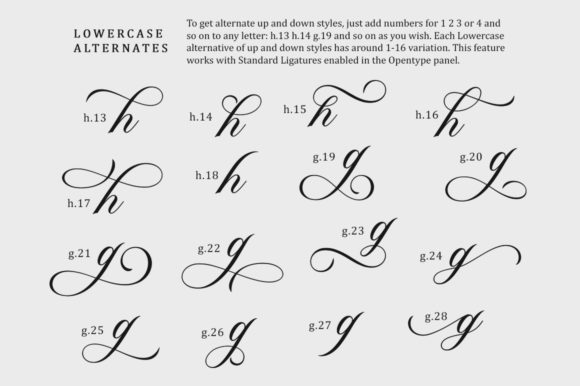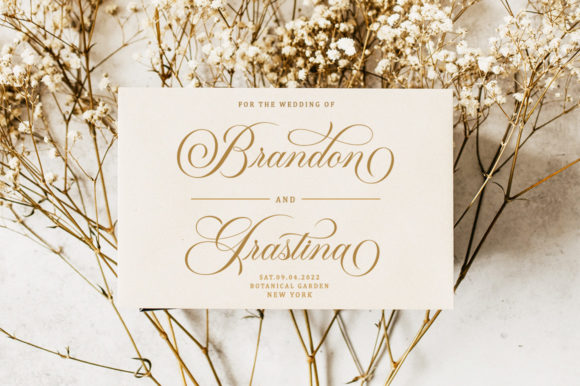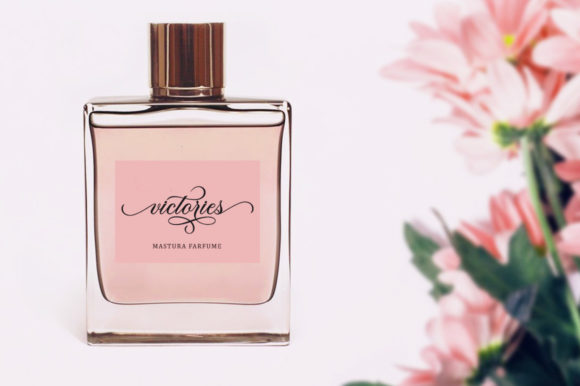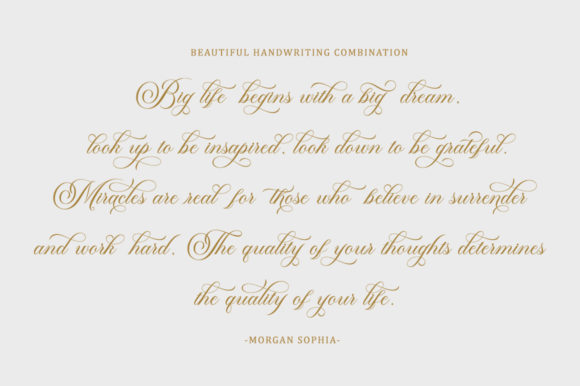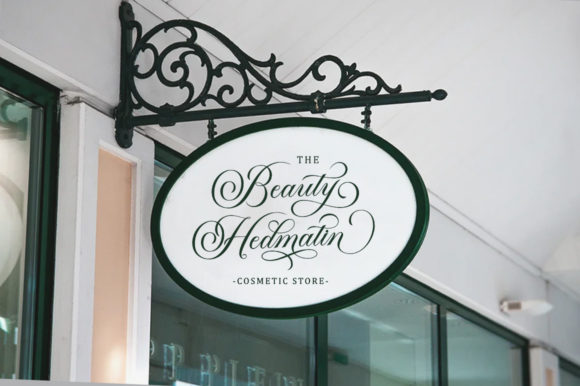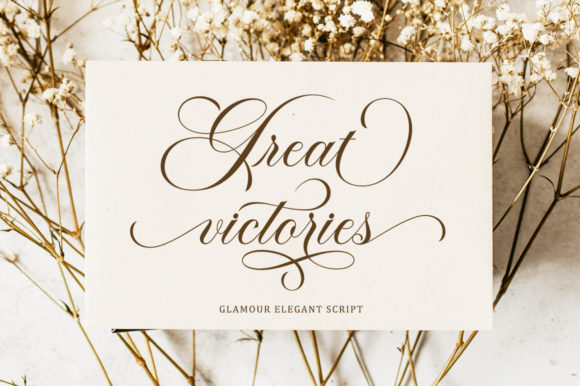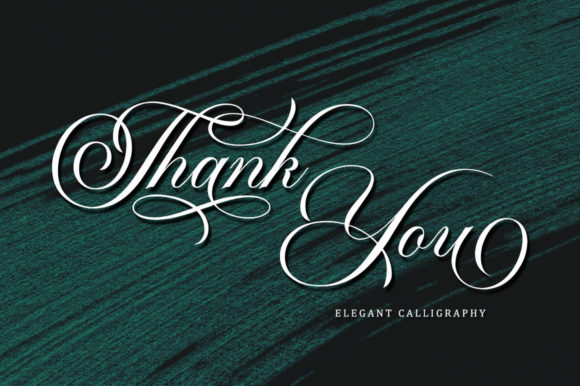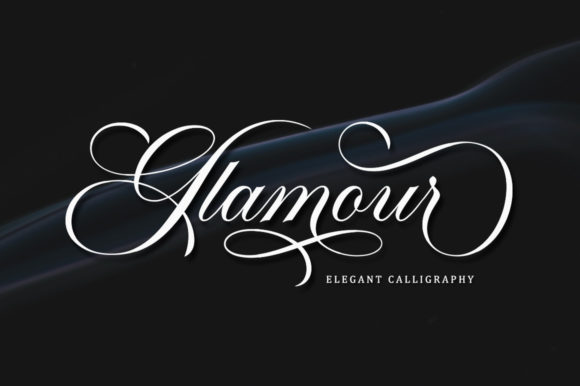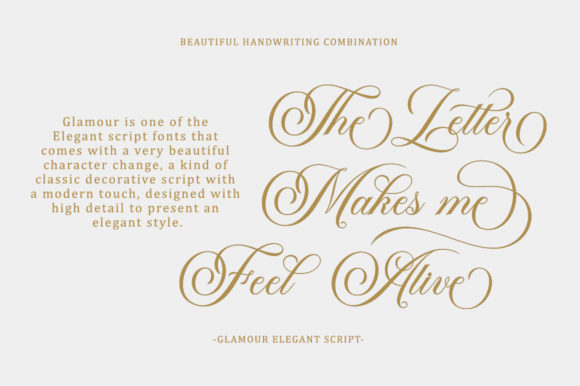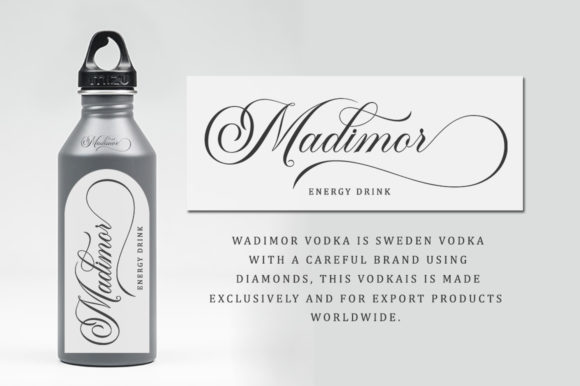
Glamour Font
About Glamour Font
Glamour is a stunning and sophisticated script font that exudes elegance and luxury. Its distinct and fashionable design makes it a perfect choice for adding a touch of glamour to your design projects. With its graceful and refined letterforms, Glamour has the ability to elevate your creations and infuse them with a sense of opulence and style.
This font is more than just a typeface – it’s a statement. Glamour is meticulously crafted to capture attention and leave a lasting impression. Its intricate details and exquisite curves make each letter a work of art, contributing to the overall sense of sophistication that the font conveys.
Whether you’re working on branding, logos, invitations, advertising, or any other design endeavor, Glamour has the power to transform your project into a high-end masterpiece. Its luxurious aura is suitable for a wide range of applications, from fashion and beauty to luxury products and high-end events.
Glamour’s PUA (Private Use Area) encoding further enhances its versatility and usability. This means that you have access to a plethora of amazing glyphs and ligatures that can be effortlessly incorporated into your designs. These special characters allow you to create unique and intricate typographic compositions that truly stand out.
The ligatures and swashes in Glamour add an extra layer of sophistication and customization to your text. They provide you with the tools to create flowing and harmonious letter combinations, enhancing the overall visual appeal of your design. This attention to detail sets Glamour apart as a font that is not only beautiful but also functional.
Incorporating Glamour into your projects will undoubtedly bring a touch of luxury and refinement. Its ability to convey a sense of glamour and exclusivity makes it a go-to choice for designers looking to create captivating and memorable visuals. Whether you’re designing for print or digital platforms, Glamour is sure to leave a lasting impression and make your design project shine with elegance and style.